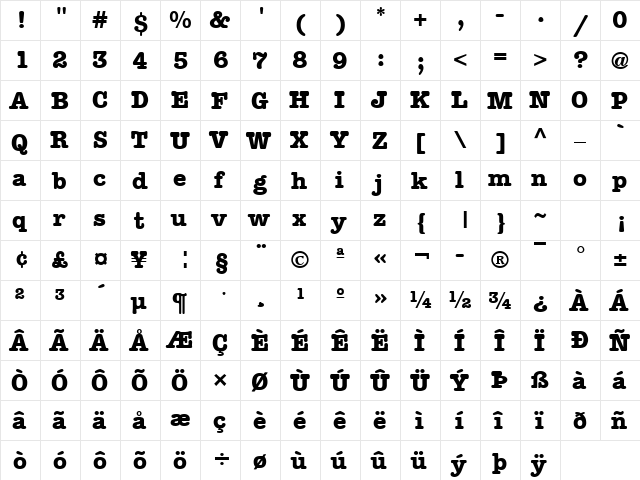
Editor Bold
Design Context for Editor Typeface
Editor offers clean, dependable letterforms without strong stylistic allegiance, making it a practical choice for designers who need flexibility. Its bold stroke weight gives it real presence on the page.